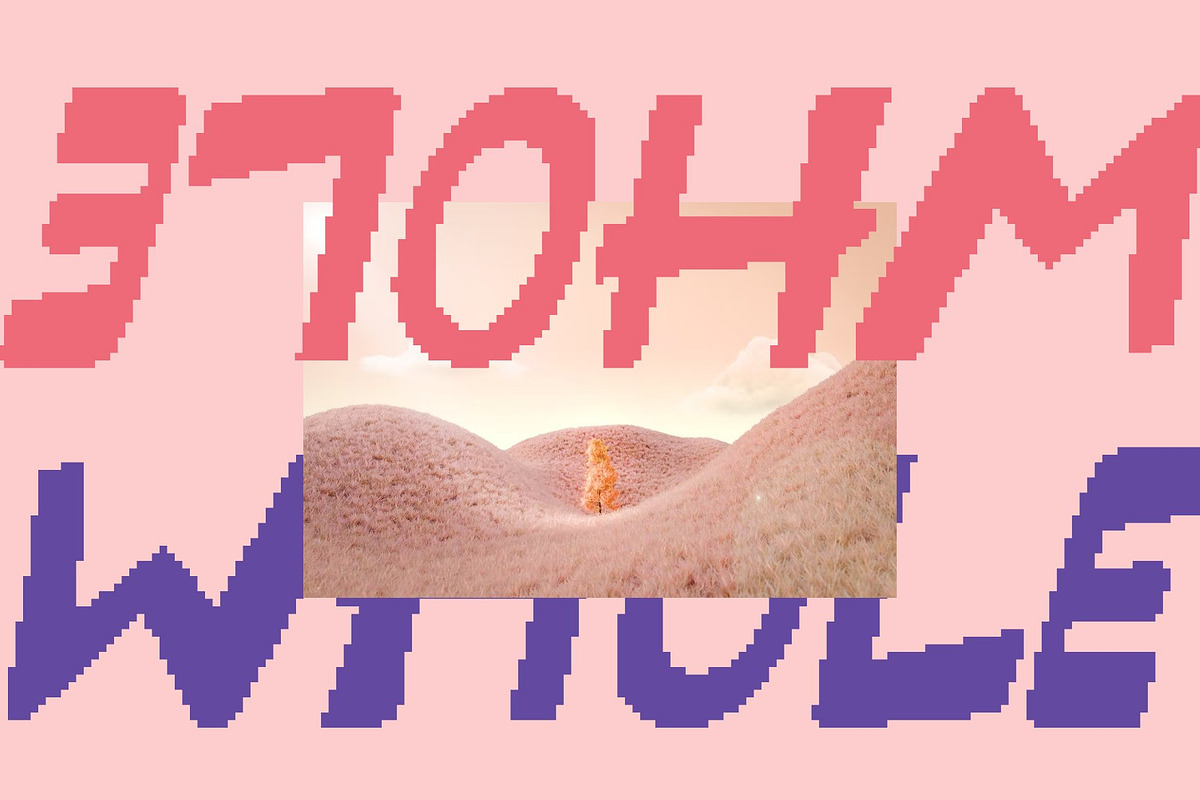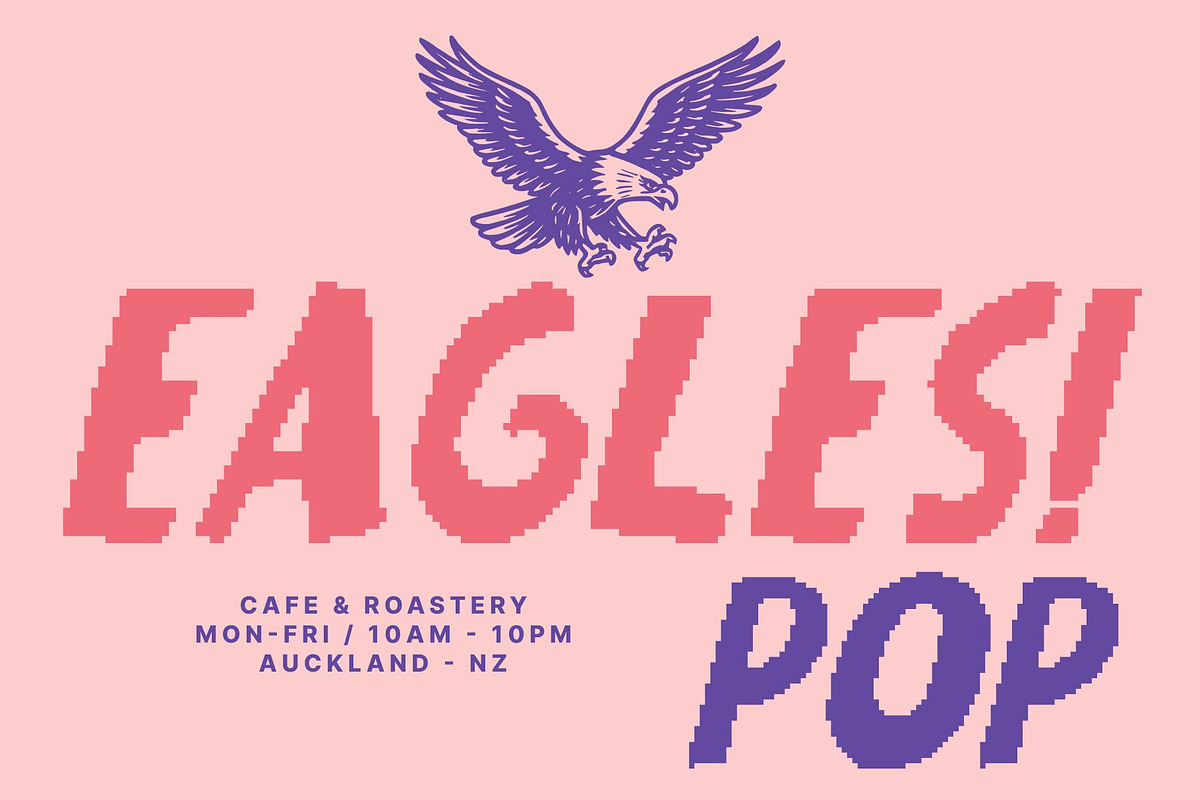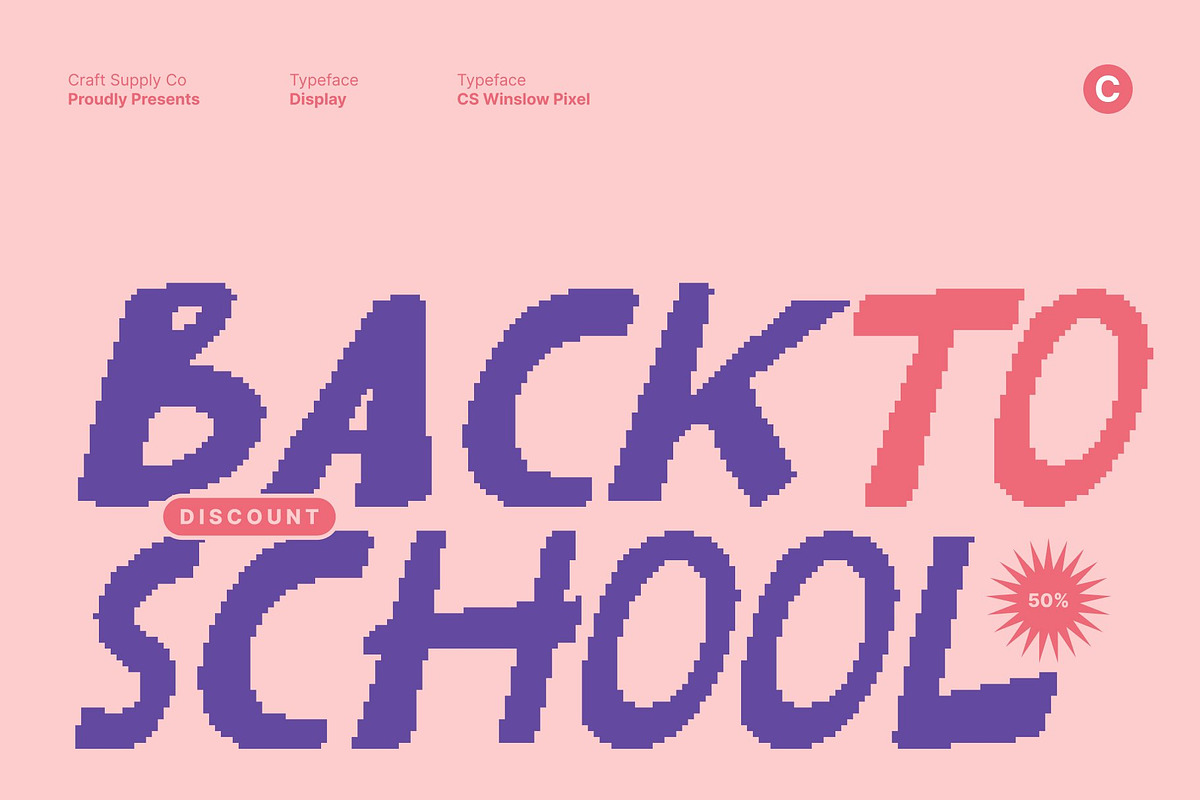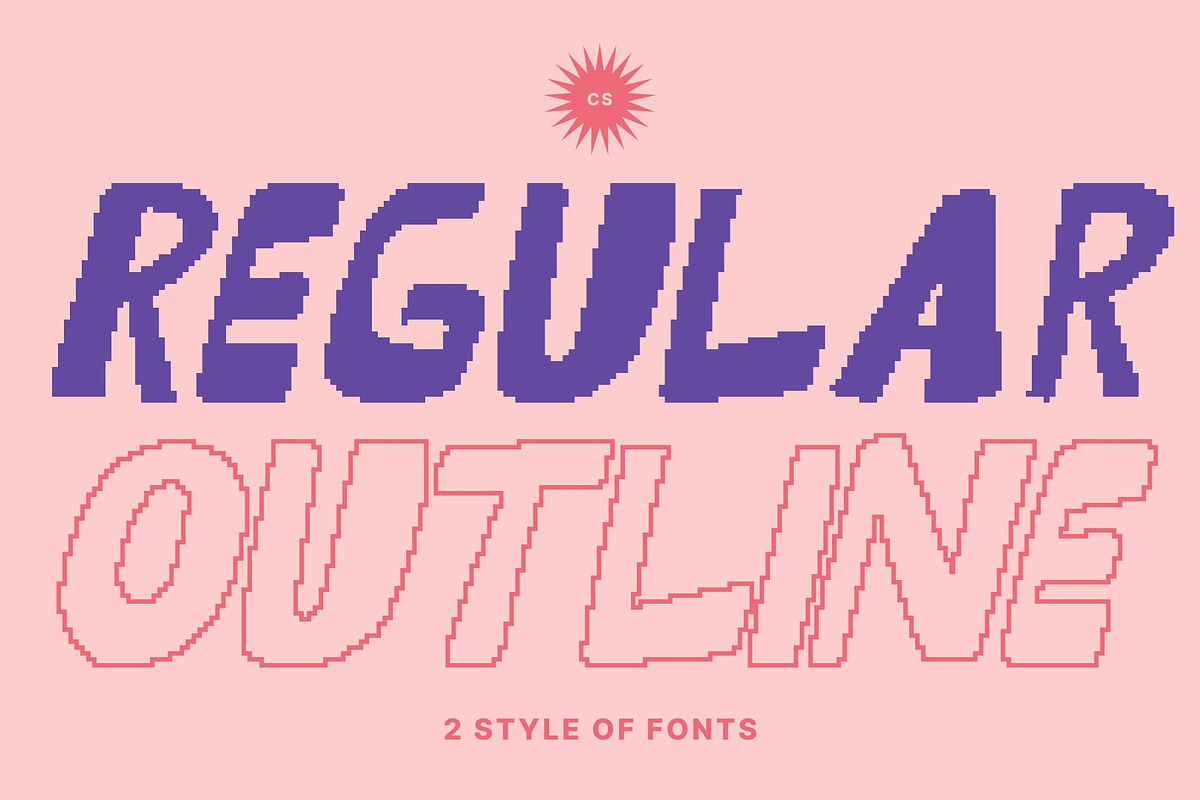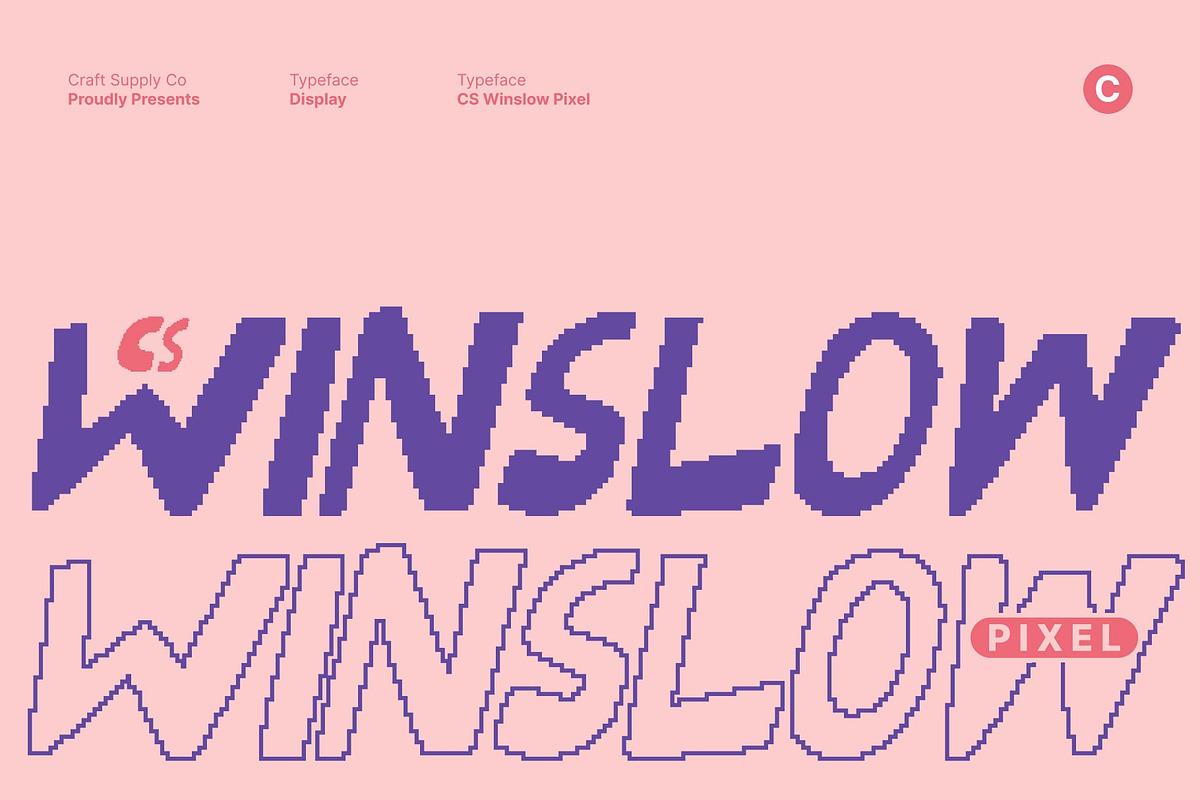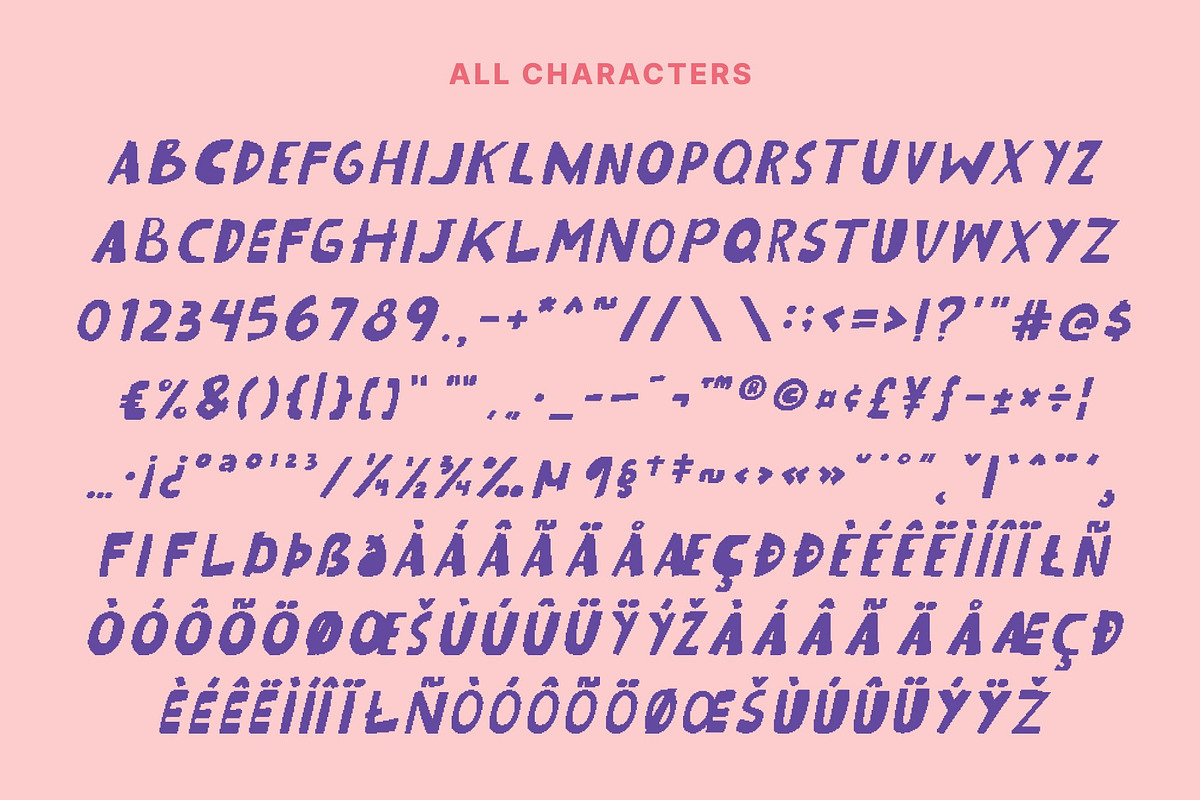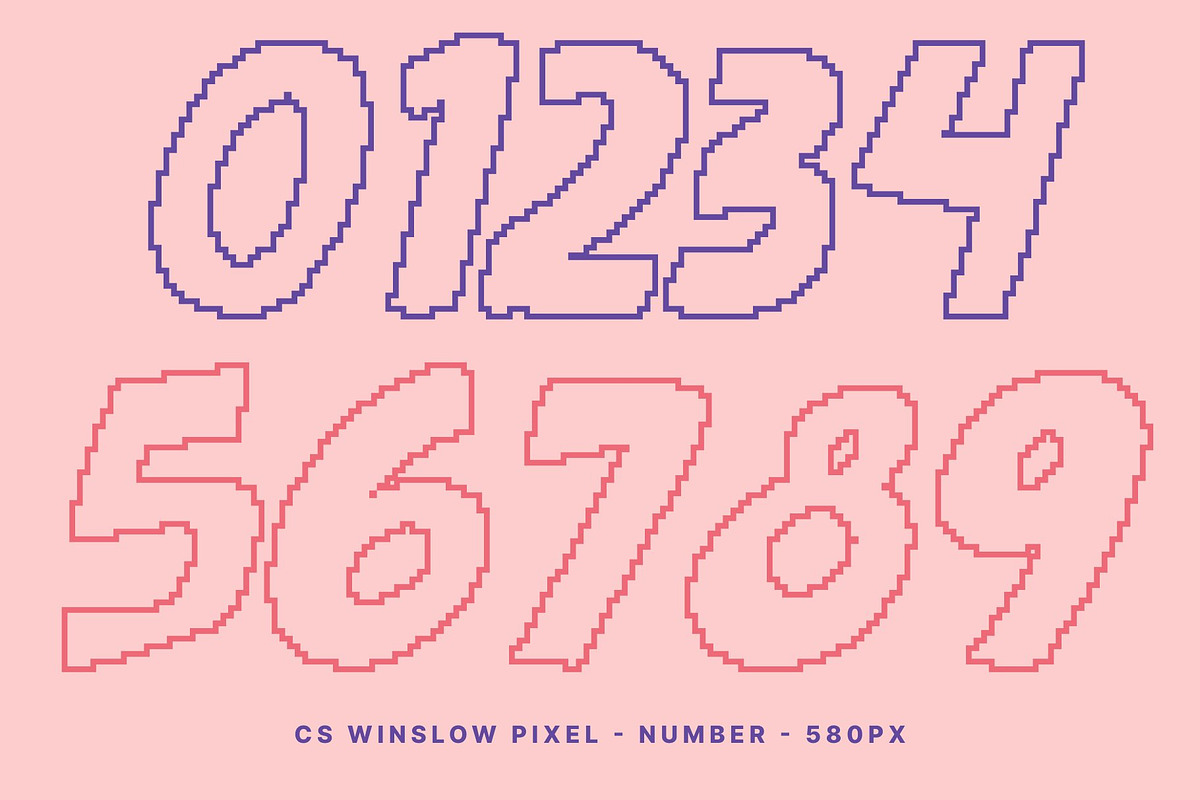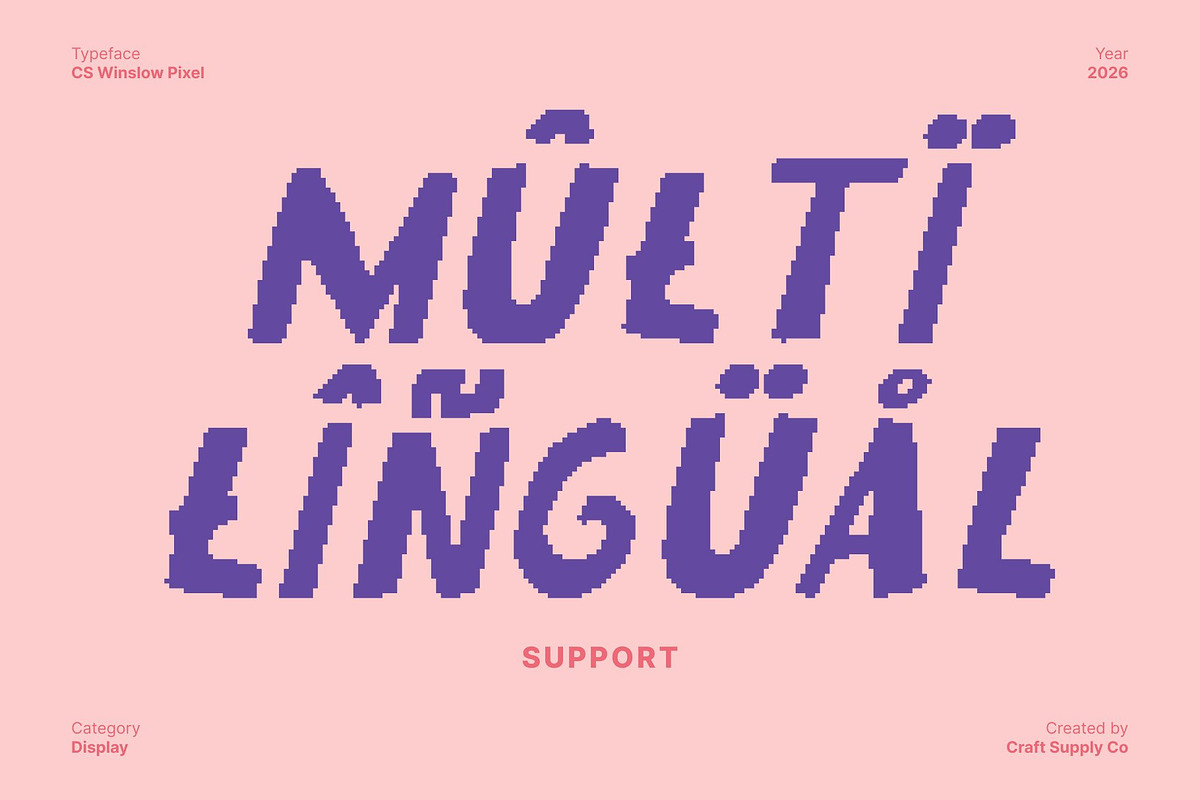
CS Winslow Pixel
CS Winslow Pixel – Playful Font with Bold, Friendly Energy
Bold Playful Style with Pixel Personality This is a lively display font that combines bold strokes and rounded, friendly shapes with subtle pixel-inspired detailing. Its strong structure radiates confidence, while the pixel accents add a fun digital twist. The result is a typeface that feels cheerful, approachable, and full of vibrant character.
Expressive Letterforms with Digital Charm Crafted with smooth curves and dynamic proportions, each letter carries a playful rhythm enhanced by crisp pixel edges. This fusion of softness and digital texture creates a youthful, energetic aesthetic that instantly elevates visual impact. It’s bold enough to stand out, yet friendly enough to feel welcoming.
Perfect for Youthful Branding and Creative Projects This font shines in youth-oriented branding, greeting cards, playful logos, educational materials, and fun packaging. Its rounded forms and pixel character help designs feel modern, upbeat, and memorable across both print and digital platforms.
Versatile for Casual and Lighthearted Design From posters and social media graphics to merchandise and editorial layouts, this font adapts effortlessly. Its bold readability paired with pixel charm ensures clarity while maintaining a relaxed, joyful tone perfect for designers who want to infuse their work with energy, warmth, and contemporary digital flair.